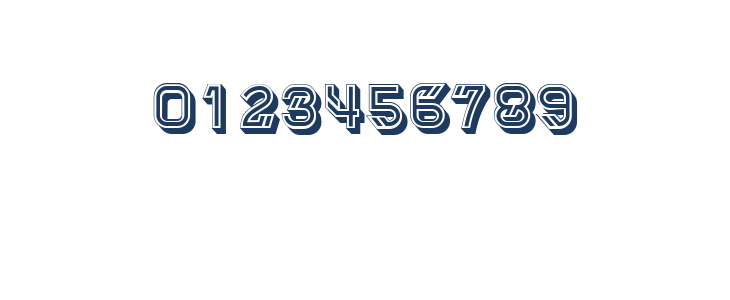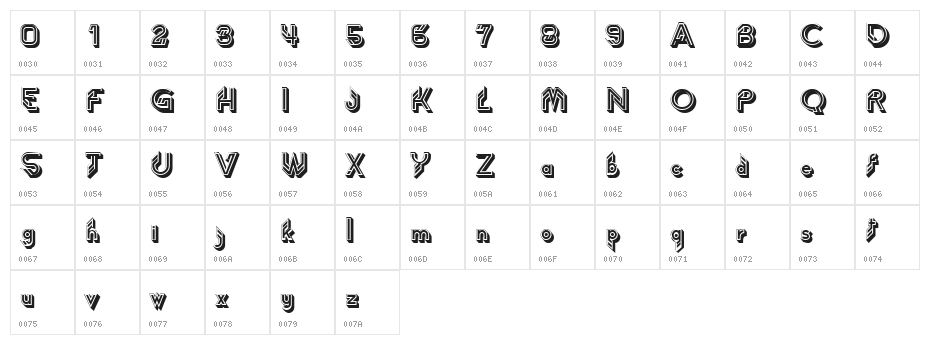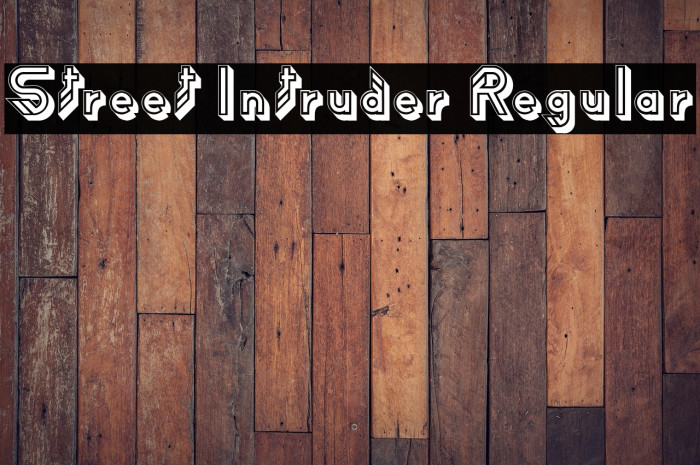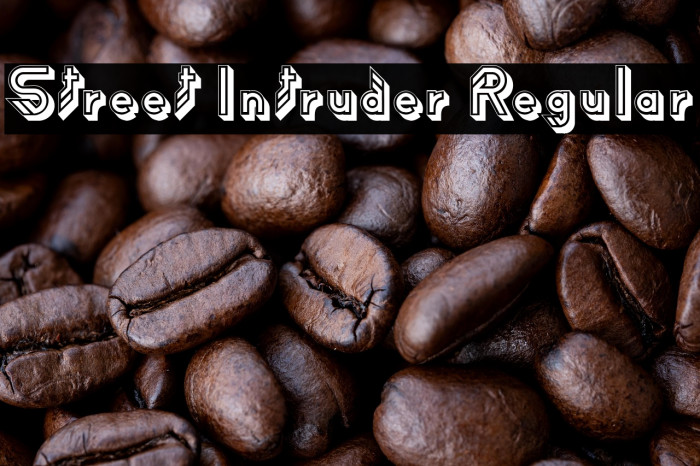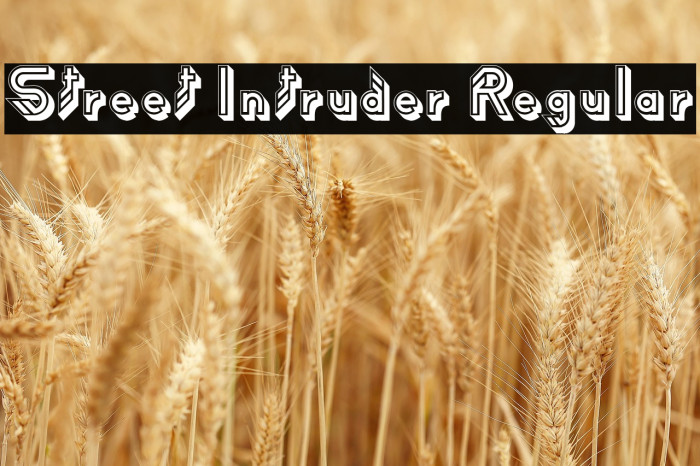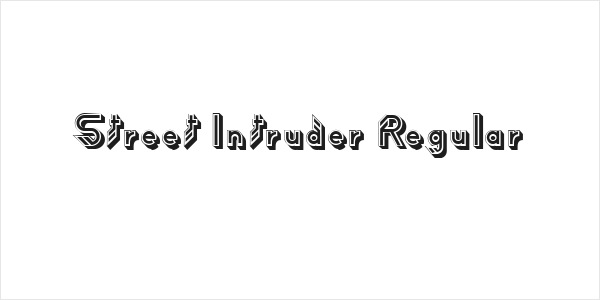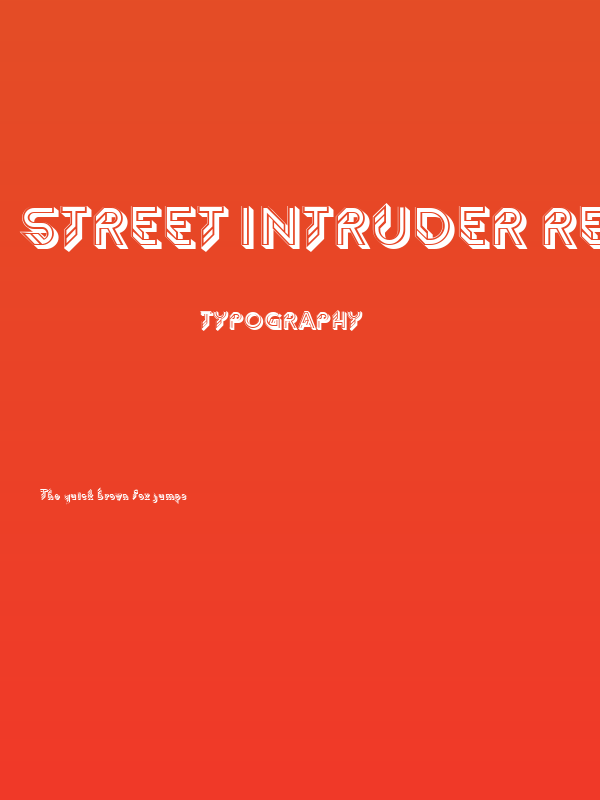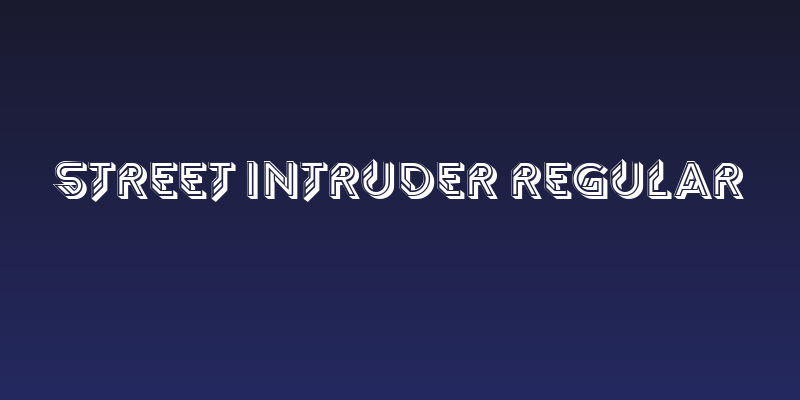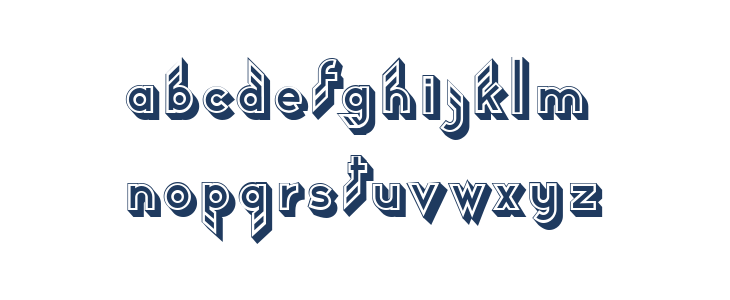
Street Intruder Regular Font
Street Intruder Regular Description
This font features a bold, three-dimensional design with a distinct shadow effect that gives it a striking, dynamic appearance. The uppercase and lowercase letters are crafted with sharp angles and geometric shapes, creating a sense of movement and depth. The numerals and special characters maintain this bold and edgy style, making them stand out. The font's unique structure and shadowing make it ideal for eye-catching designs. Its strong presence is perfect for projects that require a modern and impactful look.